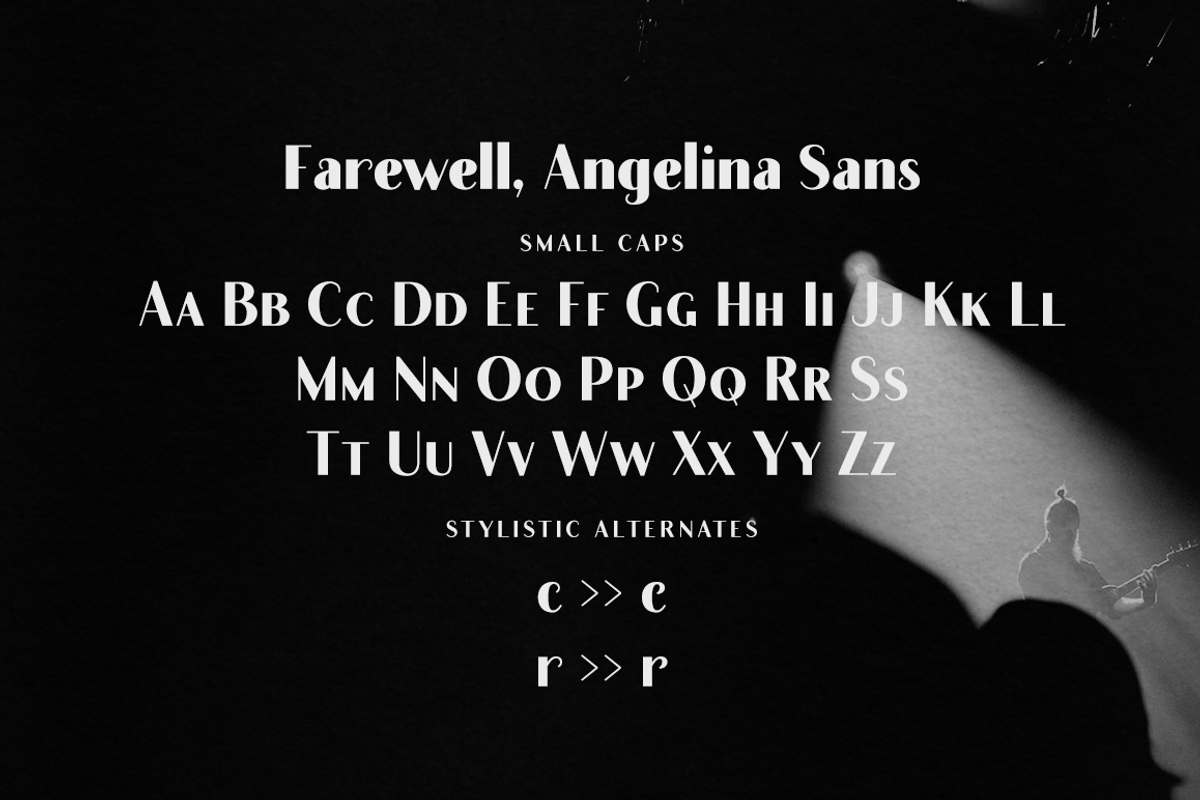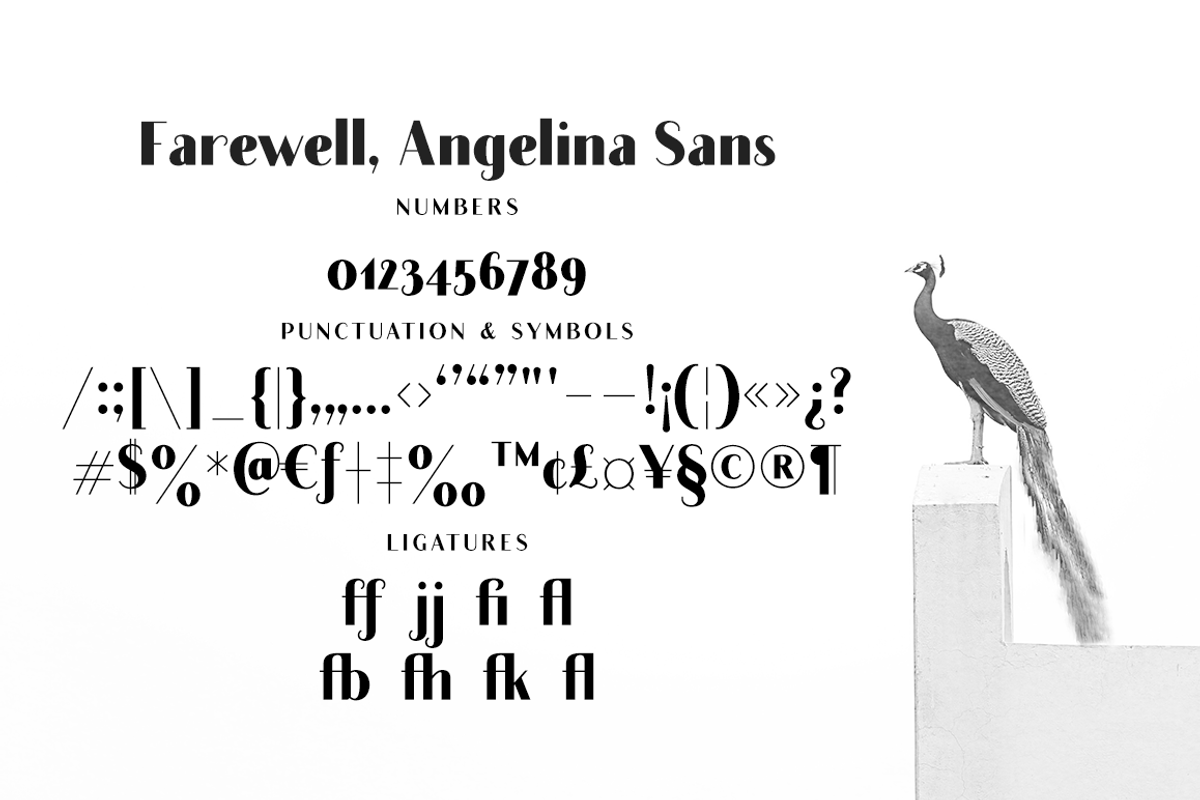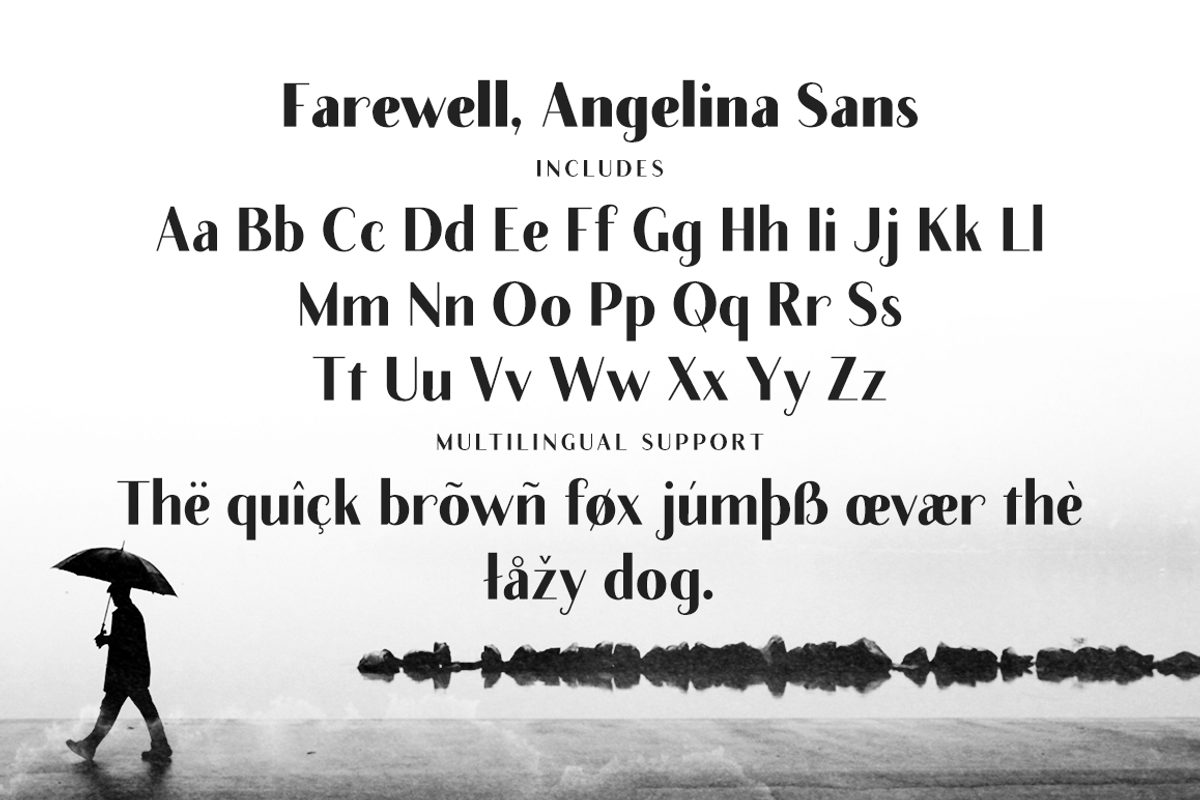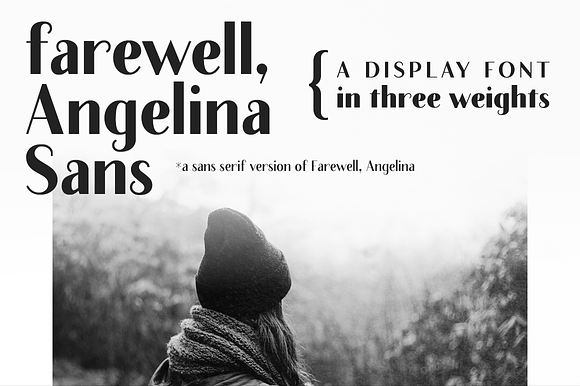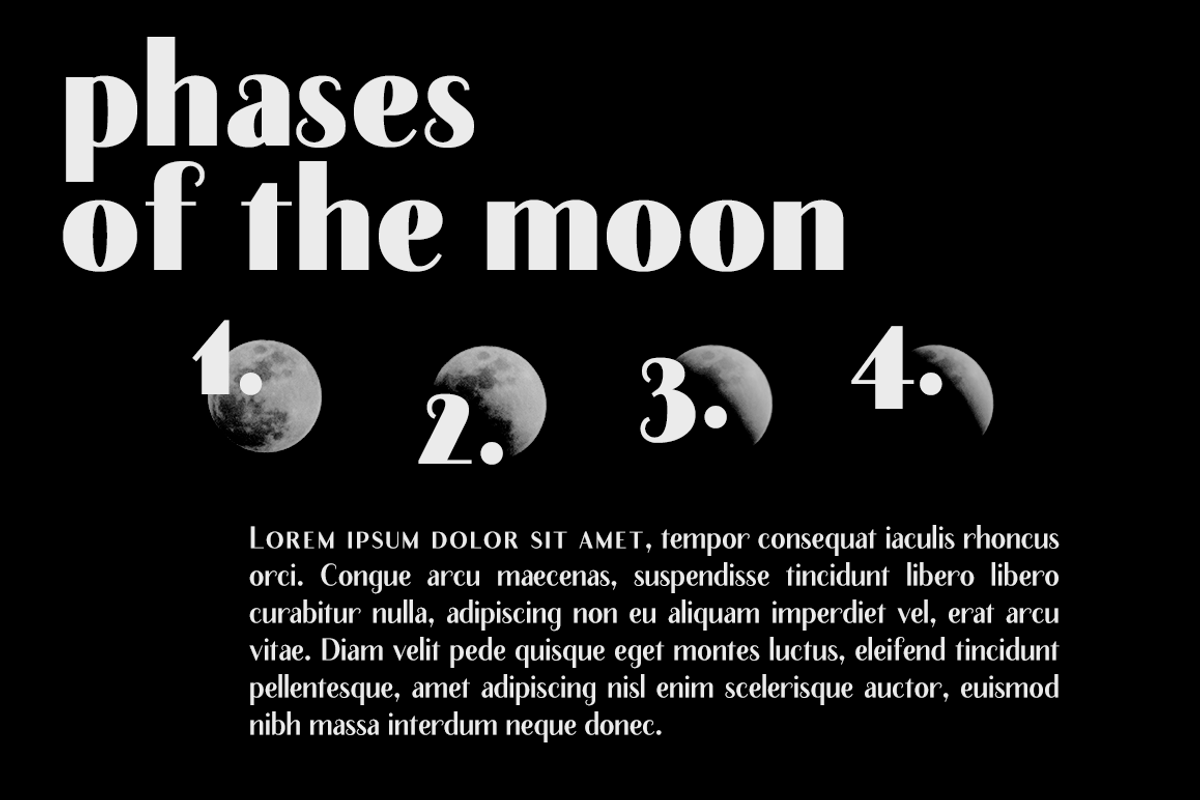
Farewell Angelina elegant Sans font
Farewell, Angelina Sans is an elegant sans serif display font with a feminine flair. It includes:
3 weights: regular, bold and black
punctuation and symbols
Farewell, Angelina Sans is perfect for magazine layouts, creating logotypes, social media posts, branding and packaging.